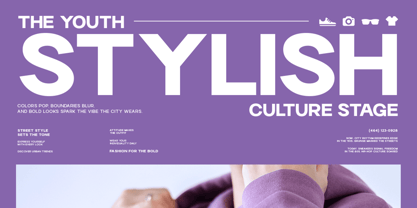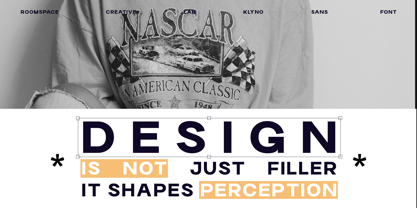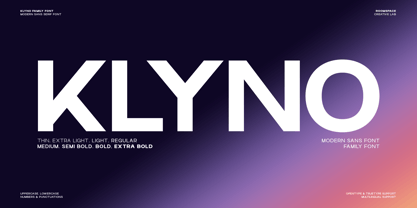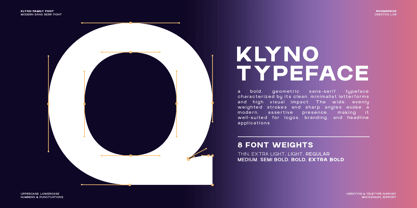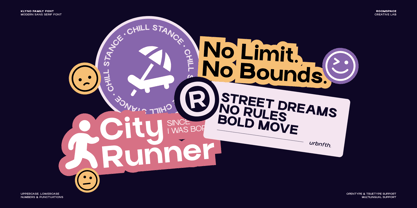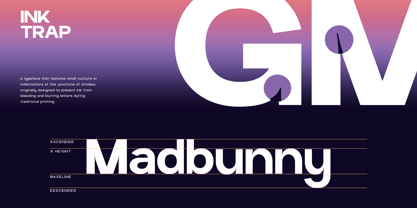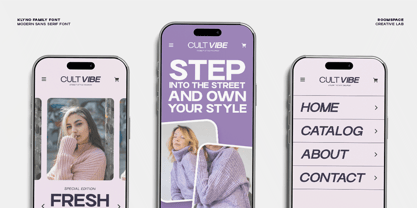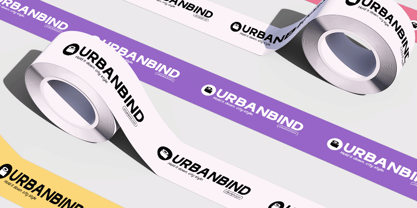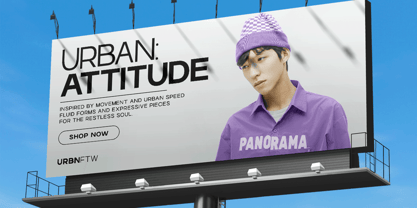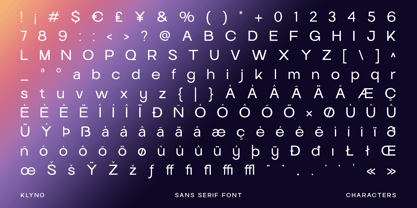
Klyno
Die Schriftfamilie Klyno wurde von Bakhrudin Ja'far entworfen und von Jafar07 veröffentlicht. Klyno enthält 8 Stile und Familienpaketoptionen. Mehr über diese Familie
Klyno is bold, structured, and unmistakably modern. A sans-serif with geometric confidence crafted for designers who want clarity with attitude. The vibe is editorial-tech, clean, and future-forward. No drama, no fluff just sharp typographic presence. Klyno Sans is a modern geometric font family built for clarity, structure, and strong visual identity. Featuring 8 weights from Thin to Extra Bold, Klyno delivers a perfect balance of minimal aesthetics and powerful readability. Its clean geometry makes it ideal for branding systems, editorial layouts, UI/UX interfaces, and high-impact digital content.
Klyno